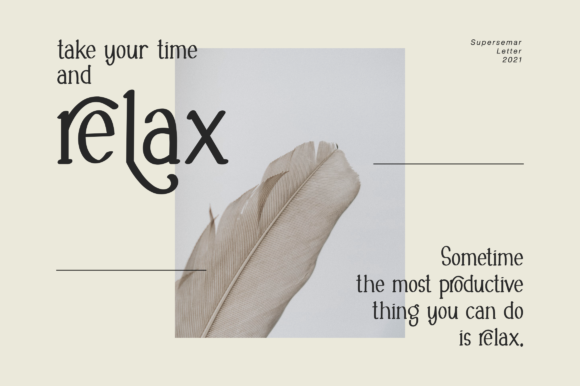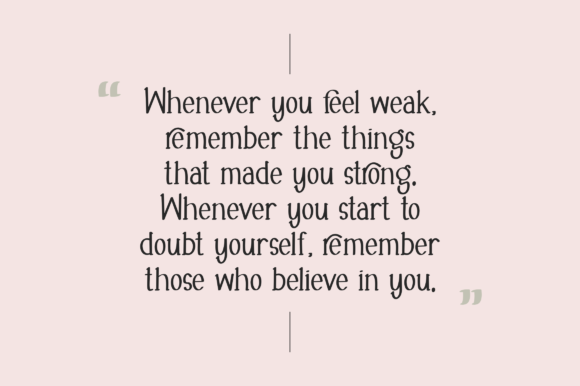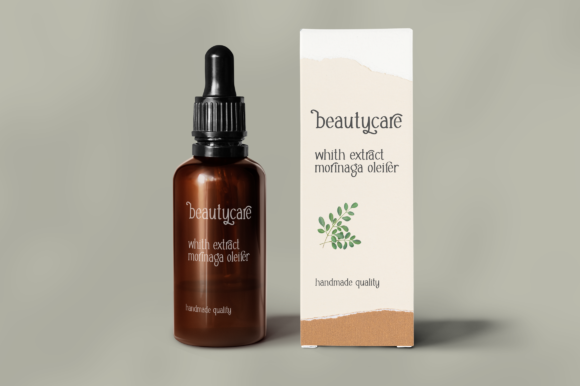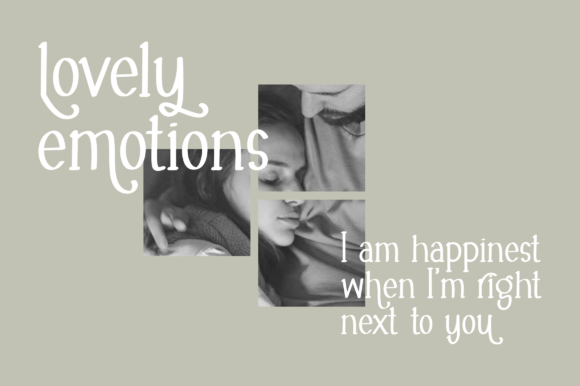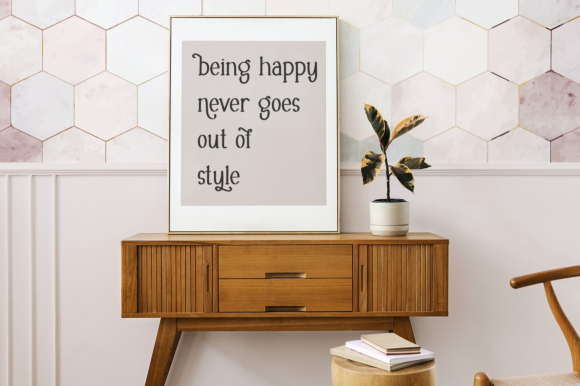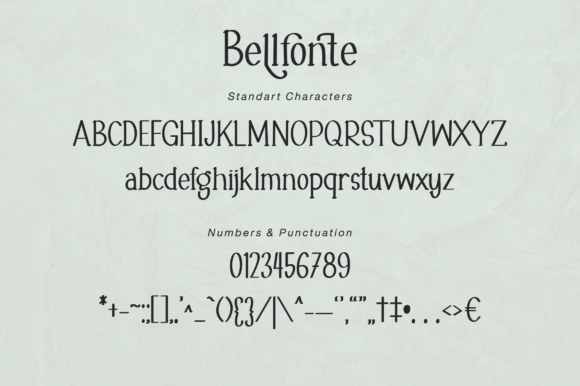
Belfonte Font: Elevate Your Designs with a Cool and Stylish Display Font
Are you tired of using the same old fonts in your designs? Look no further than the Belfonte Font, a cool, distinct, and stylish display font that’s sure to take your creations to the next level. With its unique and elegant design, Belfonte is perfect for designers and crafters looking to add a touch of sophistication to their work.
What Makes Belfonte Font So Special?
Belfonte Font is more than just a pretty face – it’s also highly functional. This PUA (Private Use Area) encoded font allows you to access all glyphs and swashes with ease, giving you complete creative control over your designs. Whether you’re working on a logo, branding project, or social media graphics, Belfonte Font provides the flexibility and versatility you need to get the job done.
Key Features of Belfonte Font
- Cool and Stylish Design: Belfonte Font boasts a unique and stylish design that’s sure to turn heads. Its elegant lines and curves make it perfect for creating visually stunning designs.
- PUA Encoded: With PUA encoding, you can access all glyphs and swashes with ease, giving you complete creative control over your designs.
- Highly Versatile: Whether you’re working on a logo, branding project, or social media graphics, Belfonte Font is the perfect choice.
- Experiment with Different Sizes: Belfonte Font looks great in a variety of sizes, from small and delicate to large and bold.
- Play with Swashes and Glyphs: With PUA encoding, you can access a wide range of swashes and glyphs to add a touch of personality to your designs.
- Pair it with Other Fonts: Belfonte Font pairs well with a variety of other fonts, making it easy to create visually stunning designs.
- Unique Design: Belfonte Font boasts a unique and stylish design that’s sure to set your designs apart.
- Highly Versatile: Whether you’re working on a logo, branding project, or social media graphics, Belfonte Font is the perfect choice.
- Elegant and stylish design
- Highly versatile and easy to use
- Perfect for logos, branding projects, and social media graphics